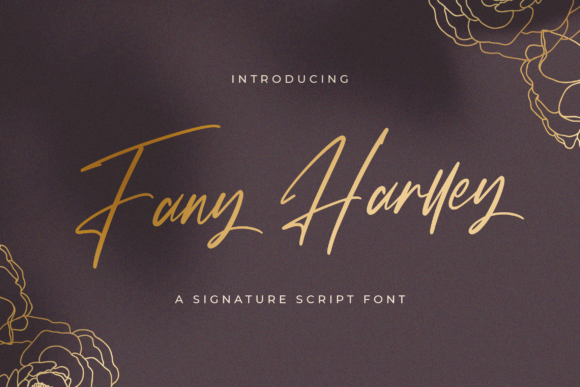
This is where the Fany Harlley Font comes in – a fashionable, cursive, and thin lettered script font designed to make your creations look truly out of this world. Its versatility makes it perfect for a variety of projects, from wedding invitations to branding materials. With the Fany Harlley Font, you can elevate your designs and make them truly unforgettable.
As a designer, you know the importance of having the right tools to bring your vision to life. The Fany Harlley Font is a valuable addition to your design arsenal, offering a unique and stylish look that will set your creations apart from the rest.
Fany Harlley Font Key Features
- Font Family: Fany Harlley Font
- Unique Characteristics: Features a modern, elegant script design with a mix of cursive and connected strokes, ideal for creative and decorative typography
Fany Harlley Font Review
Overall, I found the Fany Harlley Font to be a visually appealing and elegant addition to any design project. ✨ Its refined lines and soft curves create a sense of sophistication and luxury, making it perfect for high-end branding and publishing projects. ✨ The font’s legibility is also impressive, with clear and well-defined letterforms that make it easy to read even at small font sizes. ✨
- Refined and elegant design aesthetic
- Excellent legibility and clear letterforms
- Perfect for high-end branding and publishing projects
However, there are a few limitations to consider. ⚠️ The font may not be the best choice for projects that require a bold or edgy look, as its refined design may come across as too conservative. ⚠️ Additionally, the font’s limited character set and lack of international support may make it less suitable for projects that require a wide range of languages or special characters. ⚠️
I would recommend the Fany Harlley Font for designers who are looking for a sophisticated and elegant typeface that is perfect for high-end branding and publishing projects. However, designers who require a more bold or edgy look may want to consider other options.
The Fany Harlley Font is a versatile and elegant script font, making it suitable for a variety of applications, including:
- Typography-based artwork and graphics